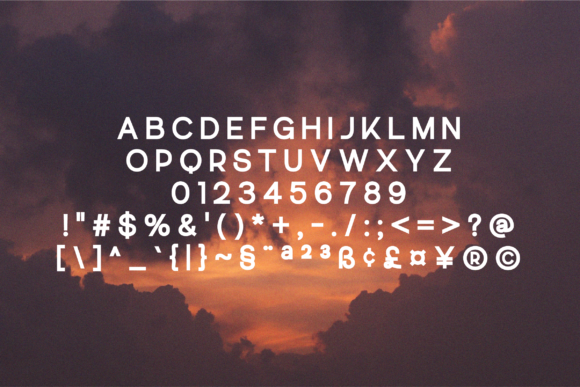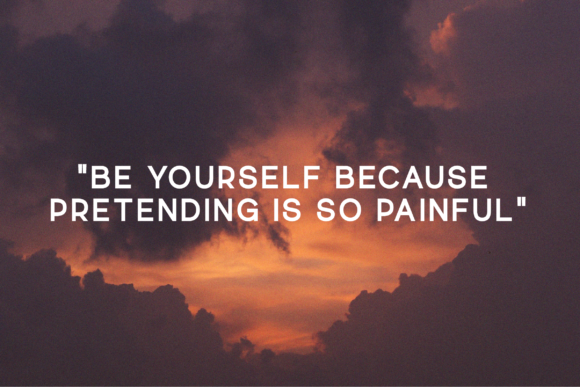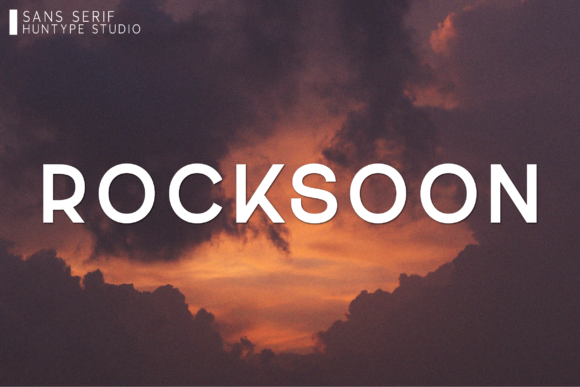
Introduction to Rocksoon Font
Rocksoon is officially a new favorite of mine – this all caps sans serif is so versatile and looks great in just about any context.
With smooth and clean lines, and just a touch of contrast, Versailles works beautifully for logos, branding, and web headings .
Why Choose Rocksoon Font?
Rocksoon Font offers exceptional quality and versatility, making it a valuable addition to your design toolkit. Whether you’re creating for personal projects or commercial use, Rocksoon Font delivers professional results.